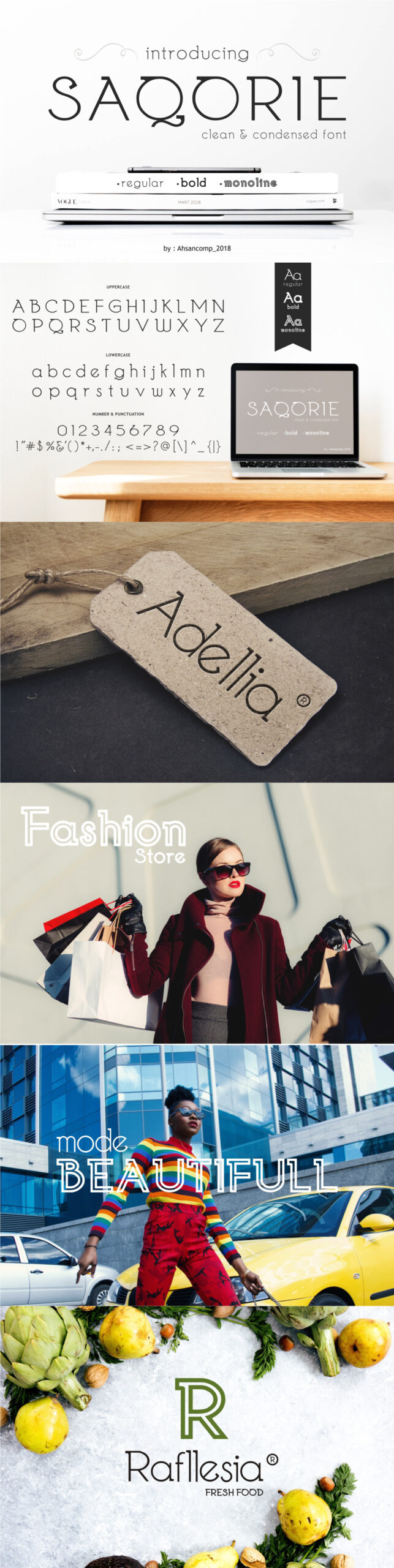
Saqorie, from Ahsancomp Studio, is a clean condensed typeface. It’s perfect for designing food packaging, newspapers, logos, shop decorations, theatrical scenery and more. This version is free for personal use! For commercial use please check here.